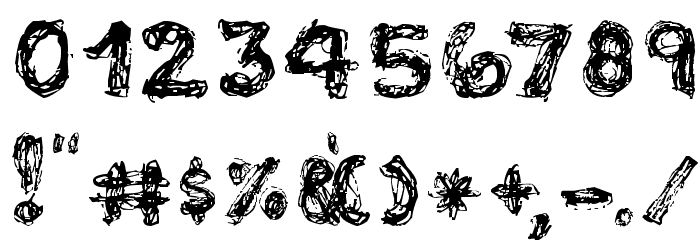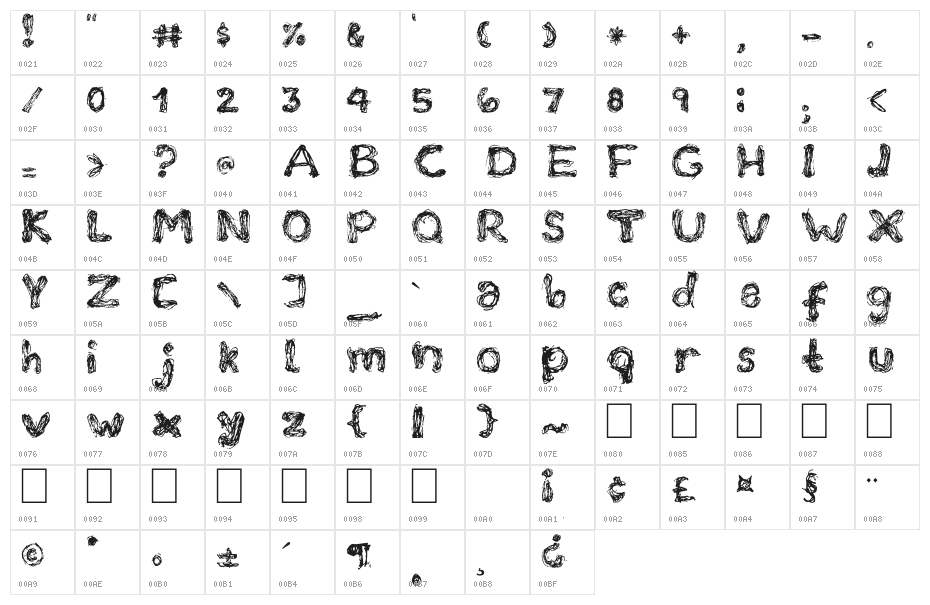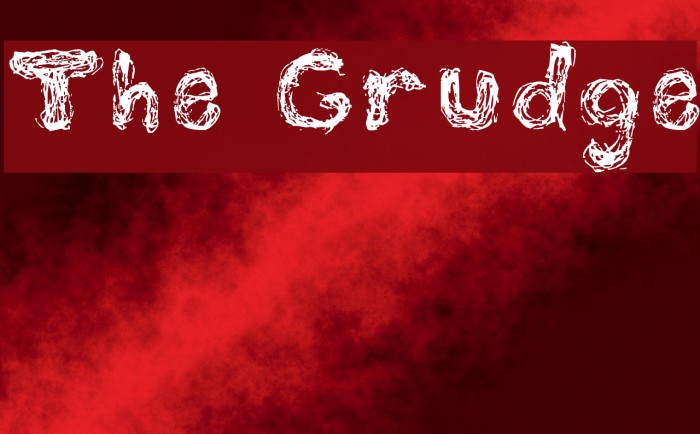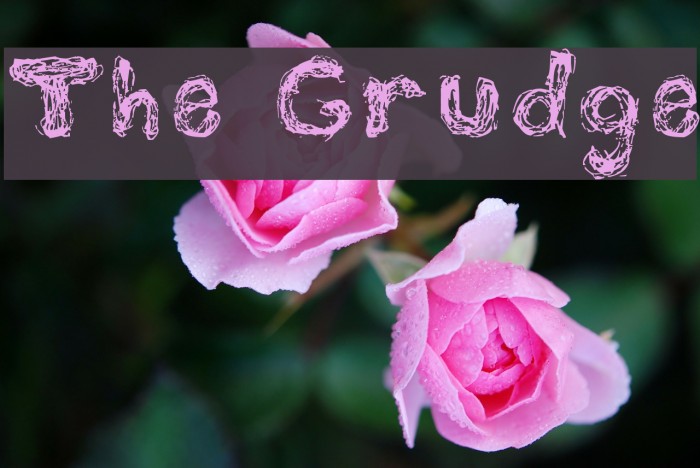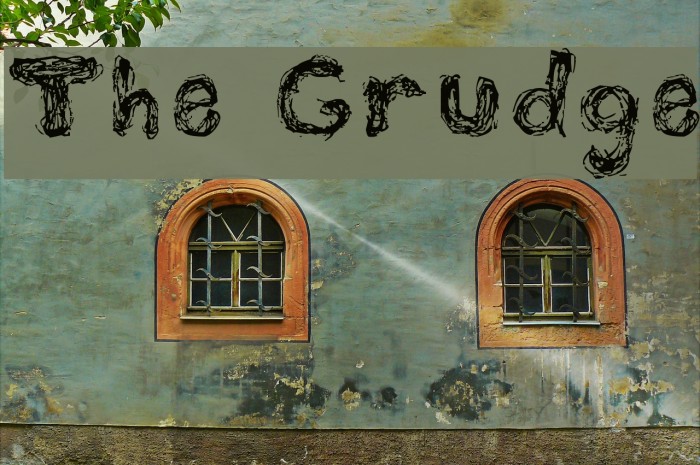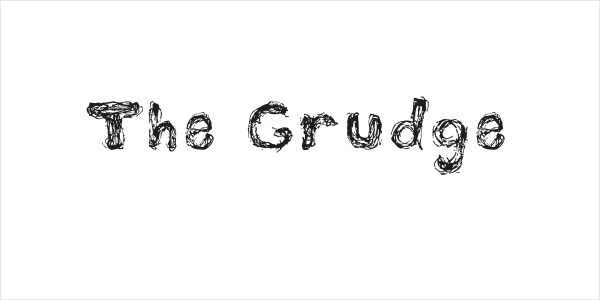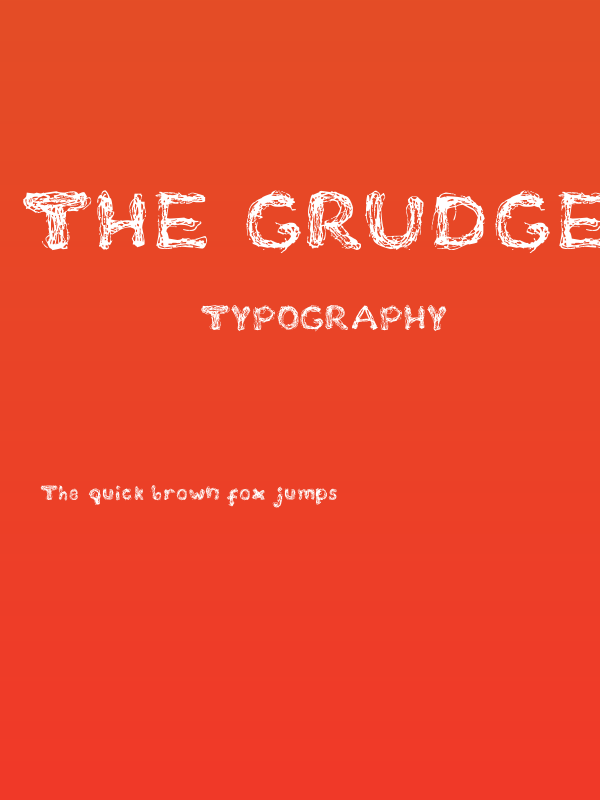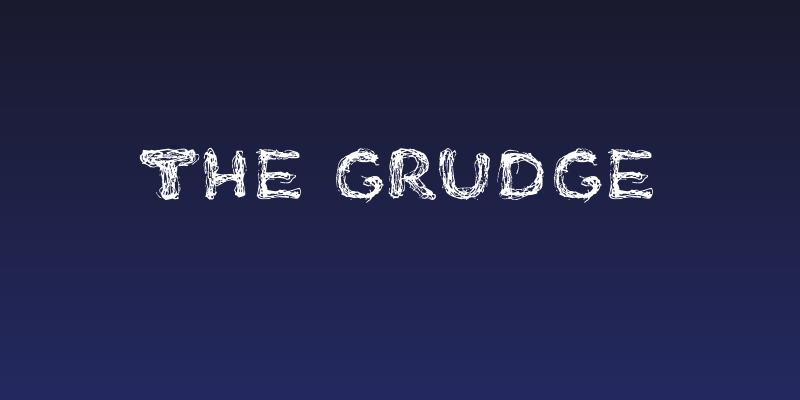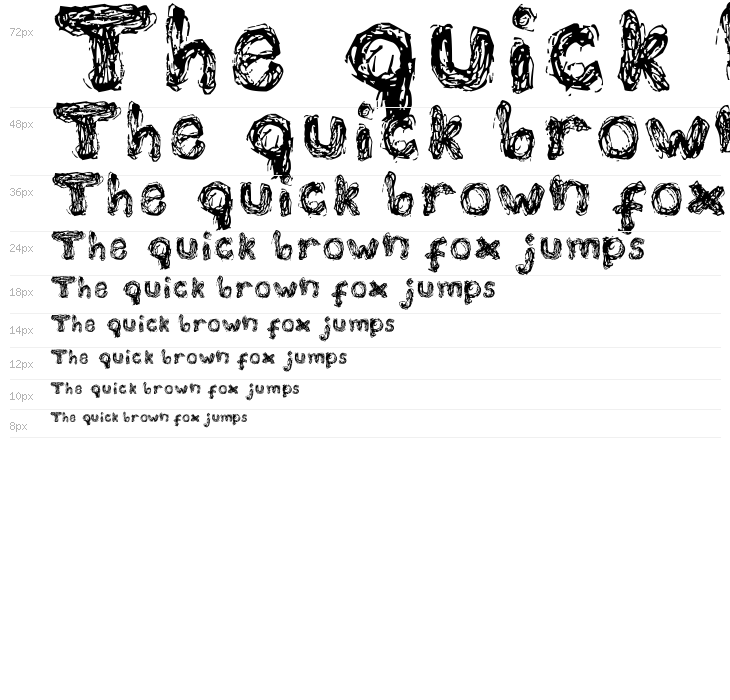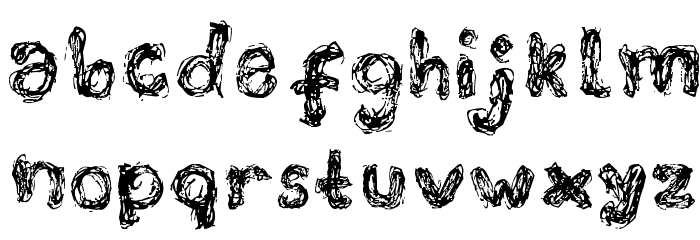
The Grudge Font
The Grudge Description
This font features a highly textured and distressed appearance, reminiscent of hand-drawn or sketched letters. Each character is filled with chaotic, overlapping strokes that create a sense of movement and energy. The irregularity in the line work gives it a raw, edgy feel, making it stand out as a bold statement piece. The uppercase and lowercase letters maintain a consistent style, with numbers and special characters following suit. This font is perfect for projects that require a grunge or horror aesthetic, adding a dramatic and intense visual impact.
| Overall Style | Grunge, Edgy, Distressed |
| Proposed Projects | Ideal for horror movie posters, edgy album covers, Halloween event flyers, and rebellious fashion branding. |